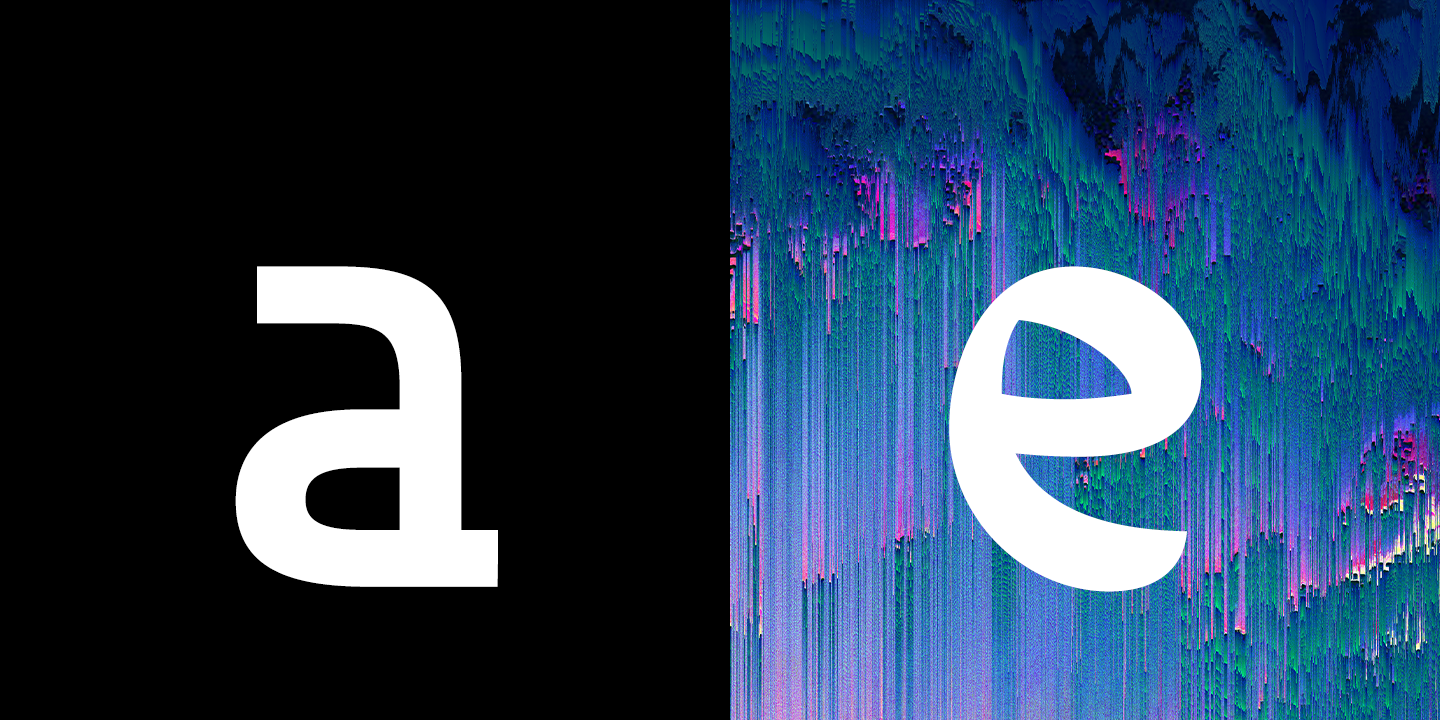
Ideal for technology branding, gaming graphics, app interfaces, digital marketing, sci-fi posters, and cutting-edge web design, Varidox Font Free Download offers a sleek and modern aesthetic that grabs attention.
What makes this font exciting is its sharp angles, clean lines, and geometric shapes that create a sense of movement and progress. Varidox stands out as a forward-thinking typeface designed to push your visuals into the future.
The Varidox font family includes multiple weights such as Regular, Bold, and Italic, allowing for versatile typographic compositions that adapt to various design needs.